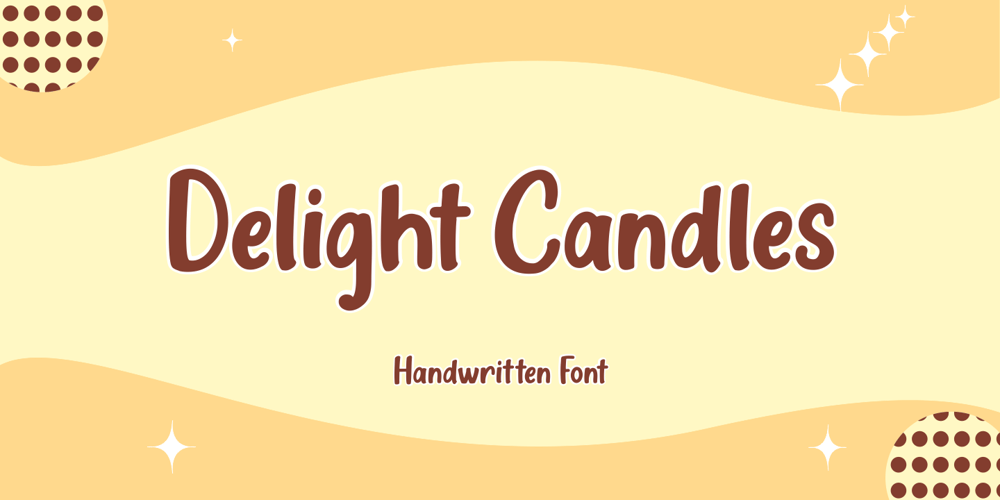
Delight Candles Font Family was designed by Muhammad Fikry and published by Fikryal. Delight Candles contains 1 styles and family package options. Delight Candles is a handwritten font perfect for crafting, branding, invitation, stationery, wedding designs, social media posts, advertisements, product packaging, product designs, label, photography, watermark, special events, or anything.Delight Candles comes with full set of uppercase and lowercase letters, multilingual symbols, numerals and punctuation.